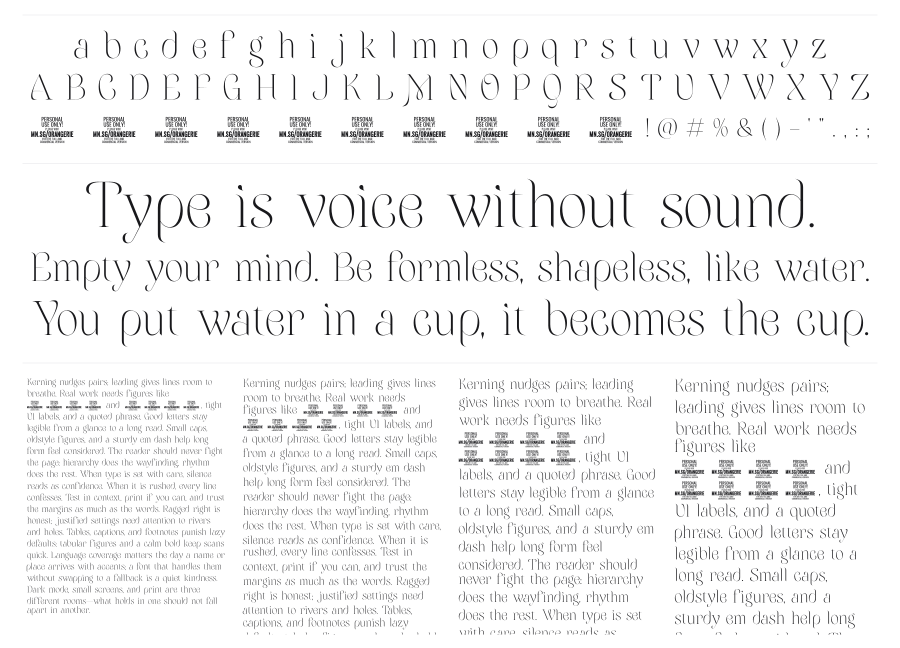
Orangerie
by Måns Grebäck · Website
Orangerie is a high-contrast display serif built on Didone bones with a soft, floaty elegance that feels more garden party than boardroom. Its hairline strokes are exceptionally fine, giving the letters an almost fragile luminosity at large sizes. The design includes decorative botanical elements via the currency character, adding an ornamental dimension beyond the letterforms themselves.